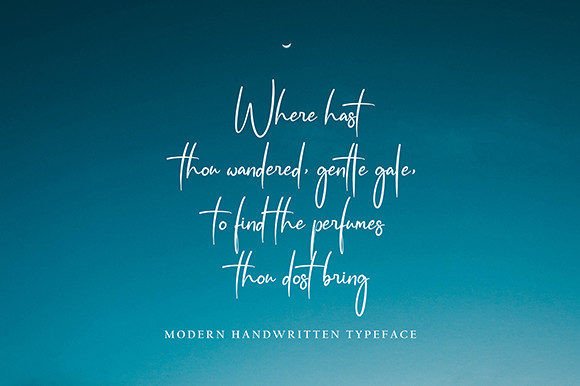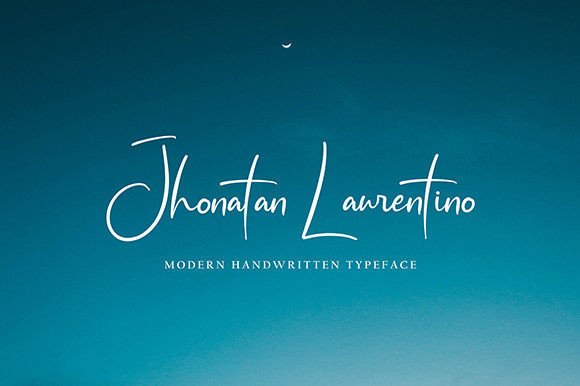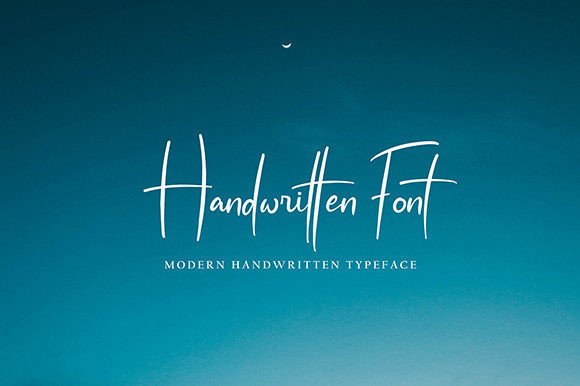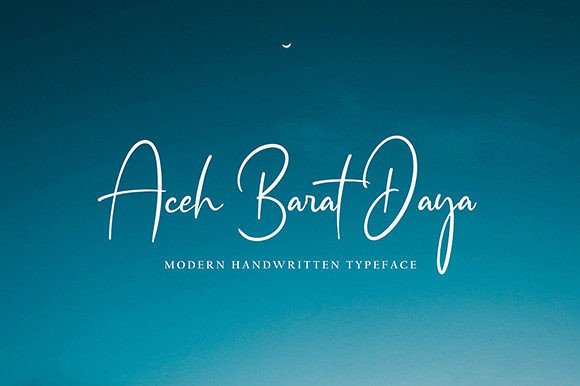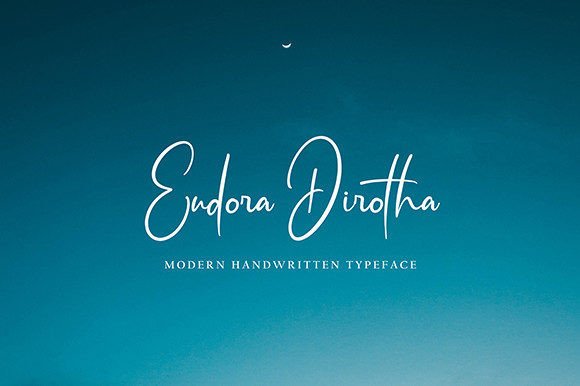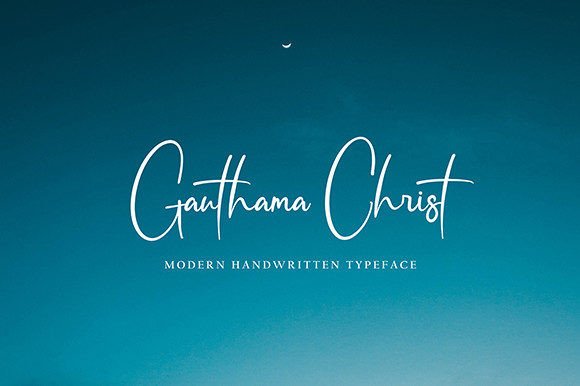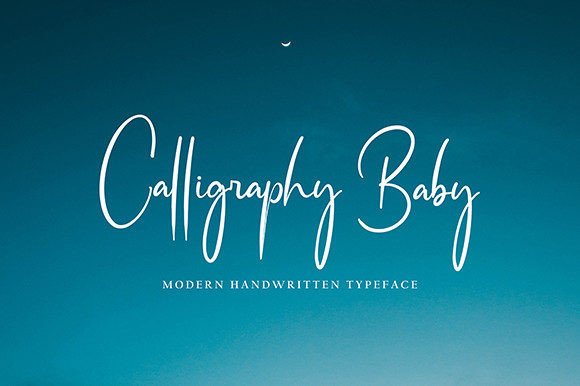
Introducing Calligraphy Baby Font: The Perfect Addition to Your Design Projects
Are you a designer or crafter looking for a unique and elegant font to elevate your projects? Look no further than Calligraphy Baby Font, a beautiful natural and cursive handwritten font that’s perfect for a wide range of applications. In this article, we’ll explore the features and benefits of Calligraphy Baby Font, and show you how it can add a touch of sophistication and style to your designs.
What is Calligraphy Baby Font?
Calligraphy Baby Font is a stunning handwritten font that’s designed to mimic the look and feel of traditional calligraphy. With its flowing curves and natural strokes, this font is perfect for creating beautiful and eye-catching text that will capture the attention of your audience. Whether you’re designing a logo, creating a poster, or crafting a invitation, Calligraphy Baby Font is the perfect choice.
Features of Calligraphy Baby Font
So, what makes Calligraphy Baby Font so special? Here are just a few of its key features:
- Natural and Cursive Handwritten Style: Calligraphy Baby Font has a beautiful, natural look that’s perfect for creating handwritten text that looks like it was written with a pen or pencil.
- Perfect for Quotes and Logos: The elegant and flowing curves of Calligraphy Baby Font make it ideal for creating stunning quotes and logos that will stand out from the crowd.
- Versatile and Flexible: Calligraphy Baby Font can be used for a wide range of projects, from blog headers and posters to invitations and stationery.
- Easy to Read and Understand: Despite its elegant and cursive style, Calligraphy Baby Font is still easy to read and understand, making it perfect for body text and other applications where legibility is important.
Benefits of Using Calligraphy Baby Font
So, why should you choose Calligraphy Baby Font for your design projects? Here are just a few of the benefits of using this beautiful font:
- Adds a Touch of Elegance and Sophistication: Calligraphy Baby Font adds a touch of elegance and sophistication to any design project, making it perfect for high-end brands and luxury products.
- Helps to Create a Unique and Memorable Brand Identity: With its unique and distinctive style, Calligraphy Baby Font can help you create a brand identity that stands out from the crowd and is remembered by your target audience.
- Perfect for Creating Beautiful and Eye-Catching Text: Calligraphy Baby Font is perfect for creating beautiful and eye-catching text that will capture the attention of your audience and draw them in.
How to Use Calligraphy Baby Font
Using Calligraphy Baby Font is easy! Here are just a few tips and ideas for incorporating this beautiful font into your design projects:
- Use it for Headings and Titles: Calligraphy Baby Font is perfect for headings and titles, where its elegant and cursive style can really make an impact.
- Pair it with Other Fonts: Calligraphy Baby Font can be paired with other fonts to create a unique and interesting contrast that adds visual interest to your design.
- Experiment with Different Colors and Textures: Calligraphy Baby Font looks great in a wide range of colors and textures, so don’t be afraid to experiment and find the perfect combination for your design.
In conclusion, Calligraphy Baby Font is a beautiful and versatile font that’s perfect for a wide range of design projects. With its natural and cursive handwritten style, elegant curves, and easy readability, this font is sure to add a touch of sophistication and style to any design. Whether you’re a designer, crafter, or DIY enthusiast, Calligraphy Baby Font is a great choice for creating stunning and eye-catching text that will capture the attention of your audience.